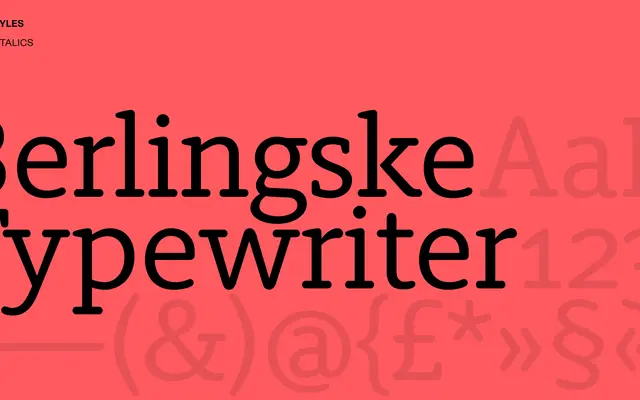
Berlingske Typewriter
A typewriter-styled monospaced face from Playtype, part of the broader Berlingske type system.
Named after the Danish newspaper Berlingske, this typewriter variant carries the mechanical texture and fixed-width rhythm associated with the genre. It sits within the Berlingske family, suggesting use in editorial and publishing contexts where a typewritten register is needed. The page content offers limited detail, but the naming convention places it firmly within a considered editorial type system.
The name explicitly references typewriter aesthetics, placing it in the monospaced typewriter subcategory with the mechanical irregularity and character typical of the genre.